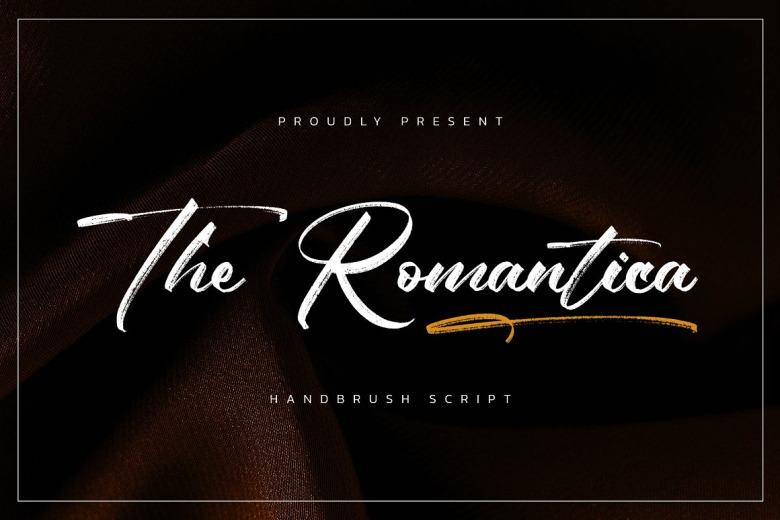
The Romantica Font
Introducing The Romantica—a Brush Script typeface conceived from casually penned letters brought to brushed life upon paper pages. Scanned and Vectorized, its authentic character endures with relaxed strokes in Regular and Slanted cuts, elegant Swashes flourishing. A natural look is lent to any text set in its charming script, exuding the relaxed warmth reminiscent of notes handwritten long ago.
Ideal for arrays of designs—homewares, branding, logos seen; quotes, packages sold; watermarks, photos displayed—The Romantica instills an invited sense of the authentic within all touched by its relaxed resonance.
The Romantica Brush Script Font